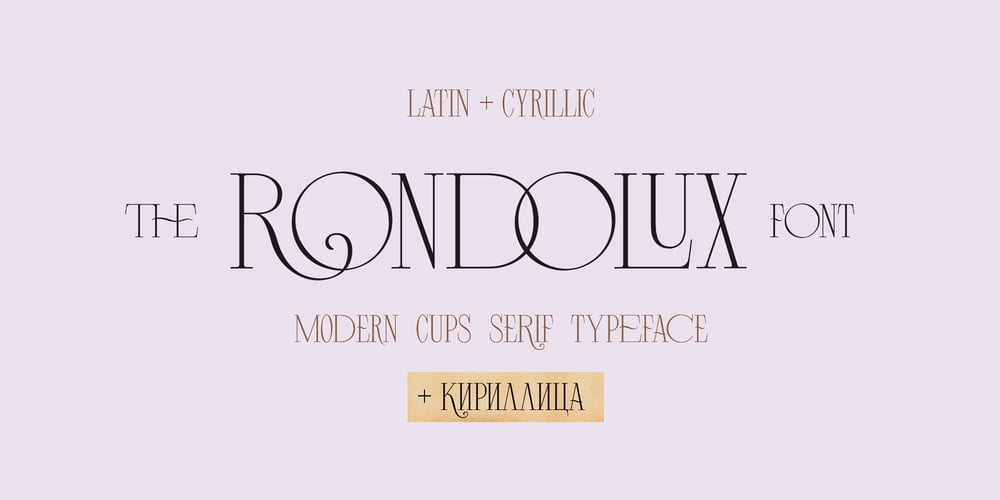
Rondolux Cyrillic Font Family was designed by Iryna Dviliuk and published by Ira Dvilyuk. Rondolux Cyrillic contains 1 styles and family package options. Rondolux Cyrillic Serif Font is a narrow classy all-caps serif typeface with narrow lowercase, wide uppercase letters, and tons of ligatures. Perfect for gorgeous logos and titles, Rondolux Cyrillic Serif Font will pair beautifully with many fonts and work well with whatever project you’re working on. You can choose to use narrow or wide glyphs to make your typography more varied.Rondolux Latin part contains 38 ligatures which you can get by typing the number 1 after letters such as OC1 KO1 Lu1…Rondolux Cyrillic part also contains 27 ligaturesMultilingual Support for 32 languages: Latin glyphs for Afrikaans, Albanian, Basque, Bosnian, Catalan, Danish, Dutch, English, Estonian, Faroese, Filipino, Finnish, French, Galician, Indonesian, Irish, Italian, Malay, Norwegian Bokmål, Portuguese, Slovenian, Spanish, Swahili, Swedish, Turkish, Welsh, Zulu.And Cyrillic glyphs support Russian, Belorussian, Bulgarian, Ukrainian, and Kazakh languages.